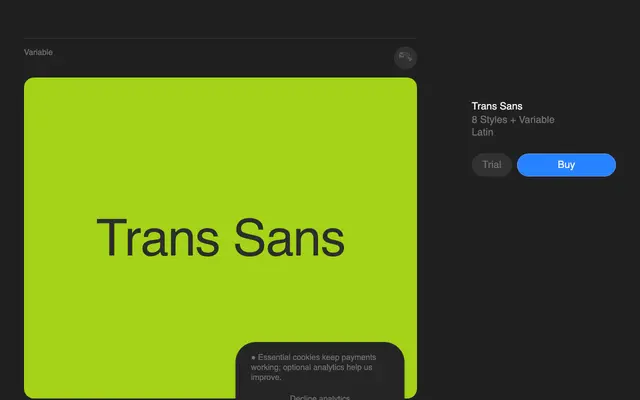
Trans Sans
A variable geometric sans by Matyáš Machat that spans eight weights and positions itself between contrasting formal poles — circular and squared, rigid and playful.
Designed by Matyáš Machat for Superior Type, Trans Sans draws on references ranging from highway signage to playful typography, using the tension between geometric and humanist tendencies as a defining feature rather than a problem to resolve. Eight styles from Thin to ExtraBold are available as static fonts or via a single variable file, with broad Latin coverage across 302 languages. Stylistic sets offer alternate letterforms and ampersands, and OpenType features include oldstyle figures, fractions and a slashed zero.
Trans Sans is a geometric sans with a variable axis spanning eight weights; its design philosophy of moving between contrasts — circular and squared forms, rhythm and order — places it firmly in the geometric sans tradition with humanist inflections.